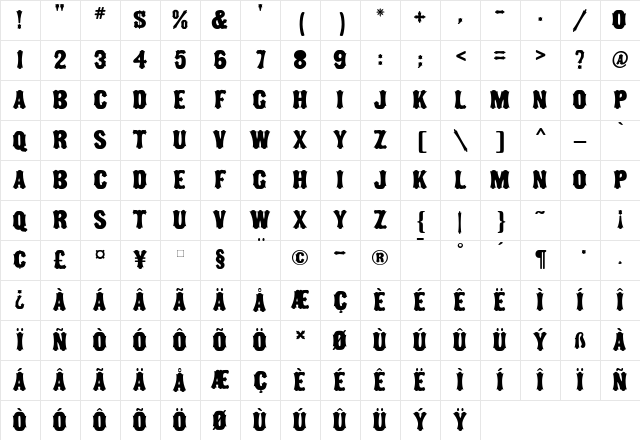
Complete Tuscan MF Narrow glyph index. Displaying only characters natively supported by Tuscan MF Narrow font.
Tuscan MF is a composed and adaptable typeface that performs quietly and consistently across a wide range of design contexts. Its narrow stance lets it pack a punch even in space-constrained designs.